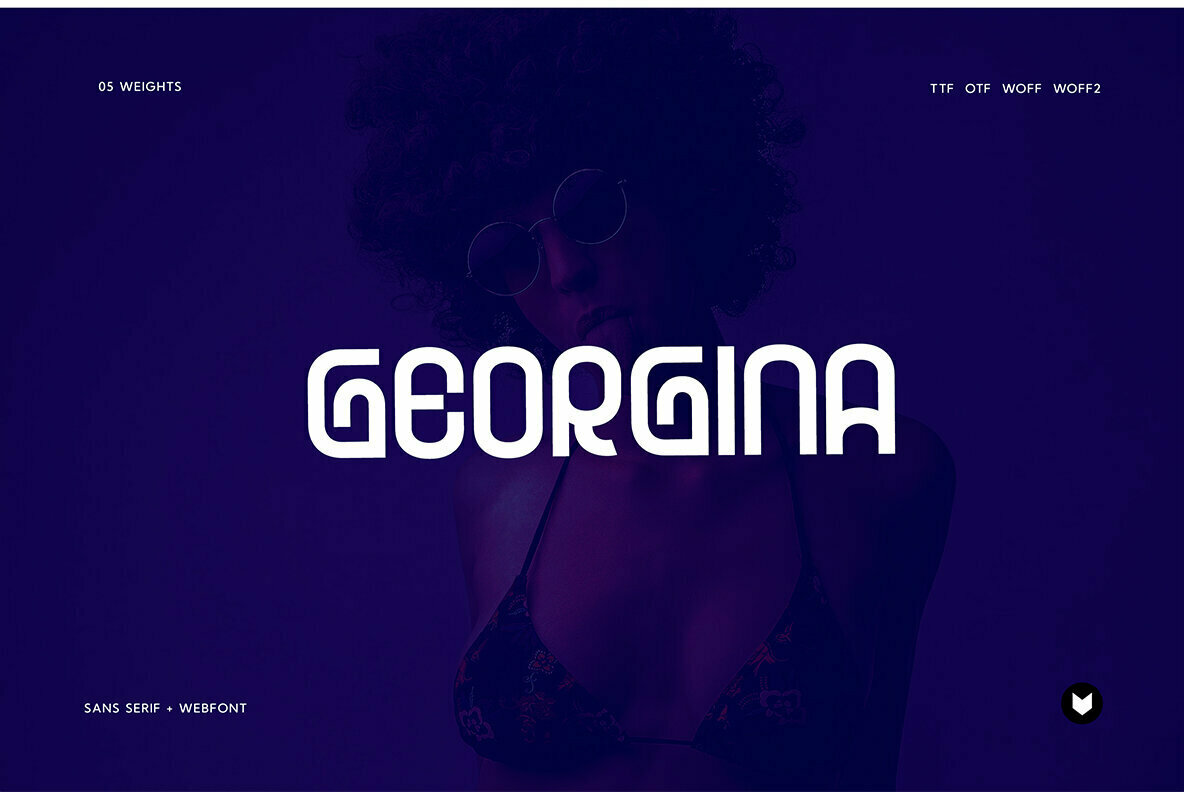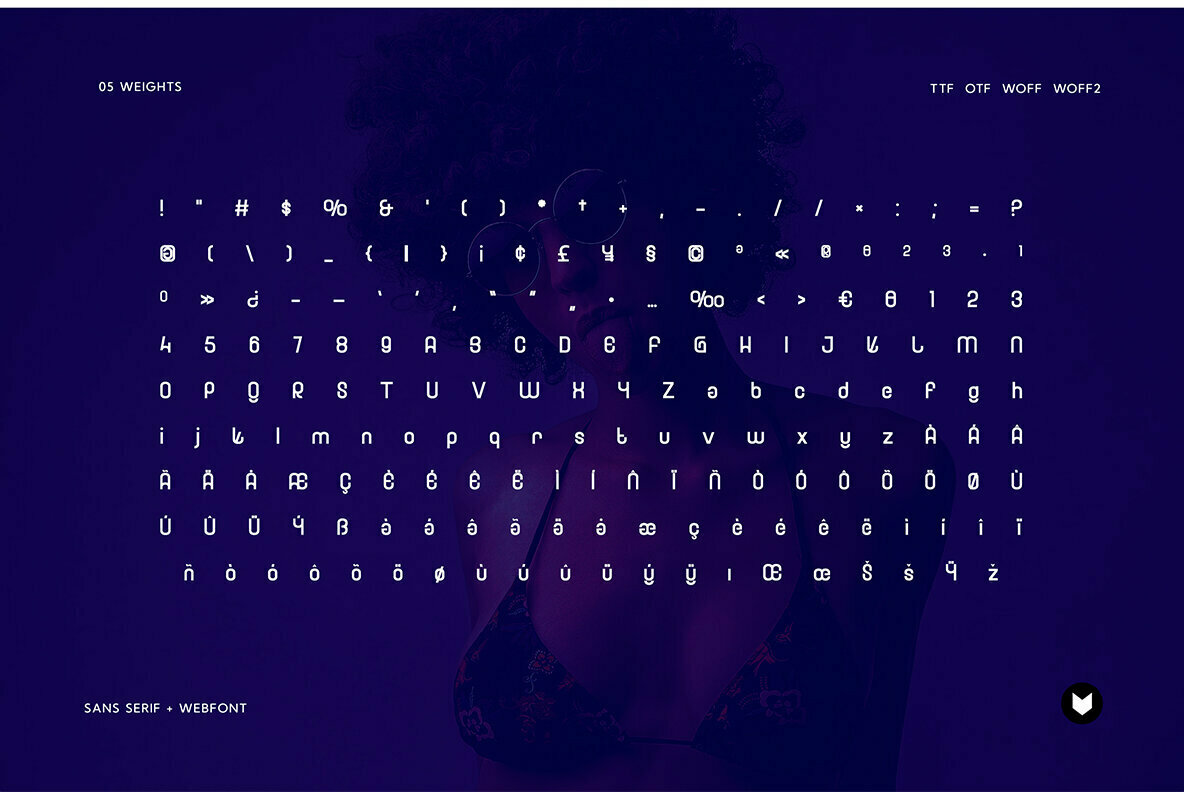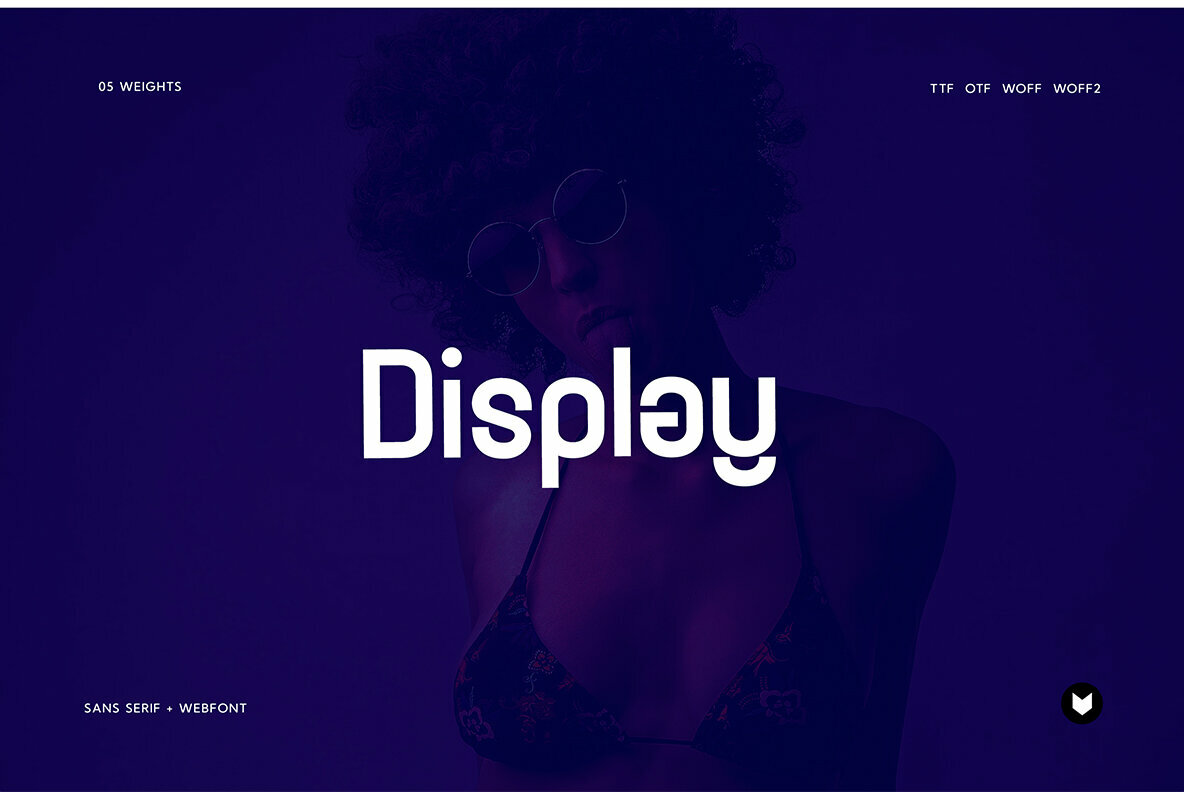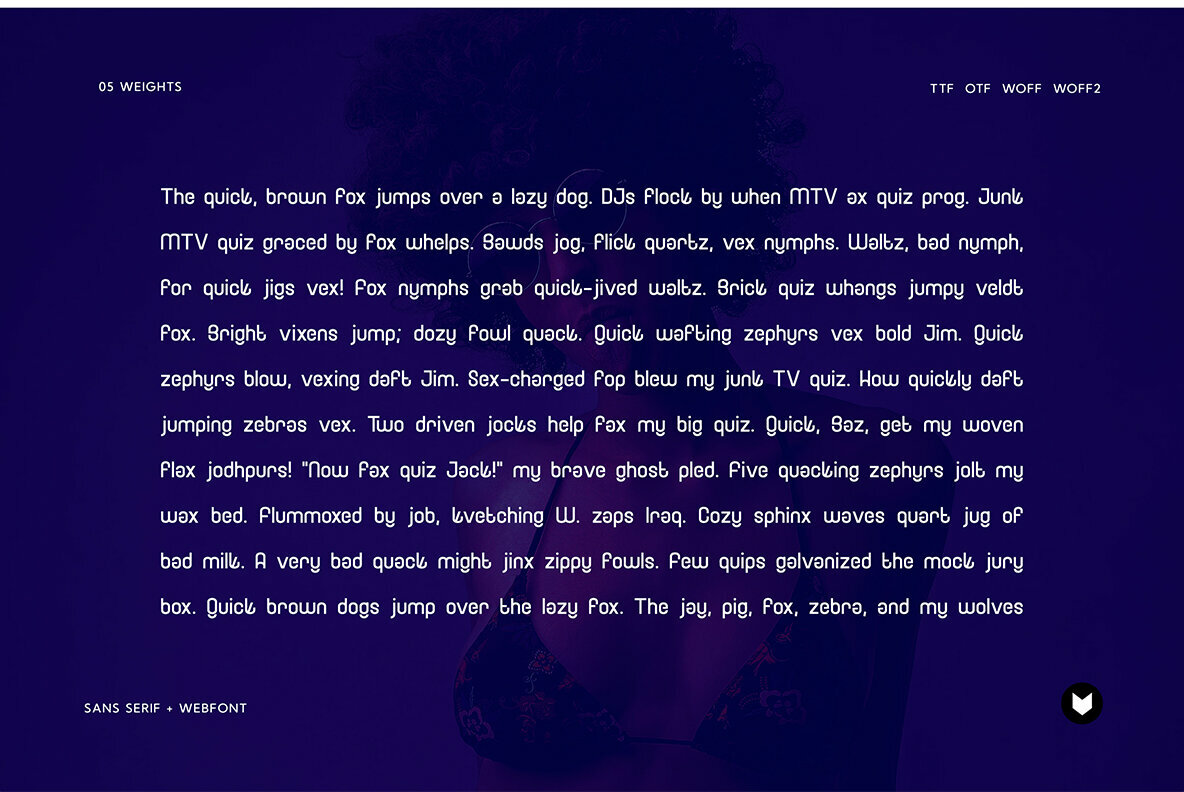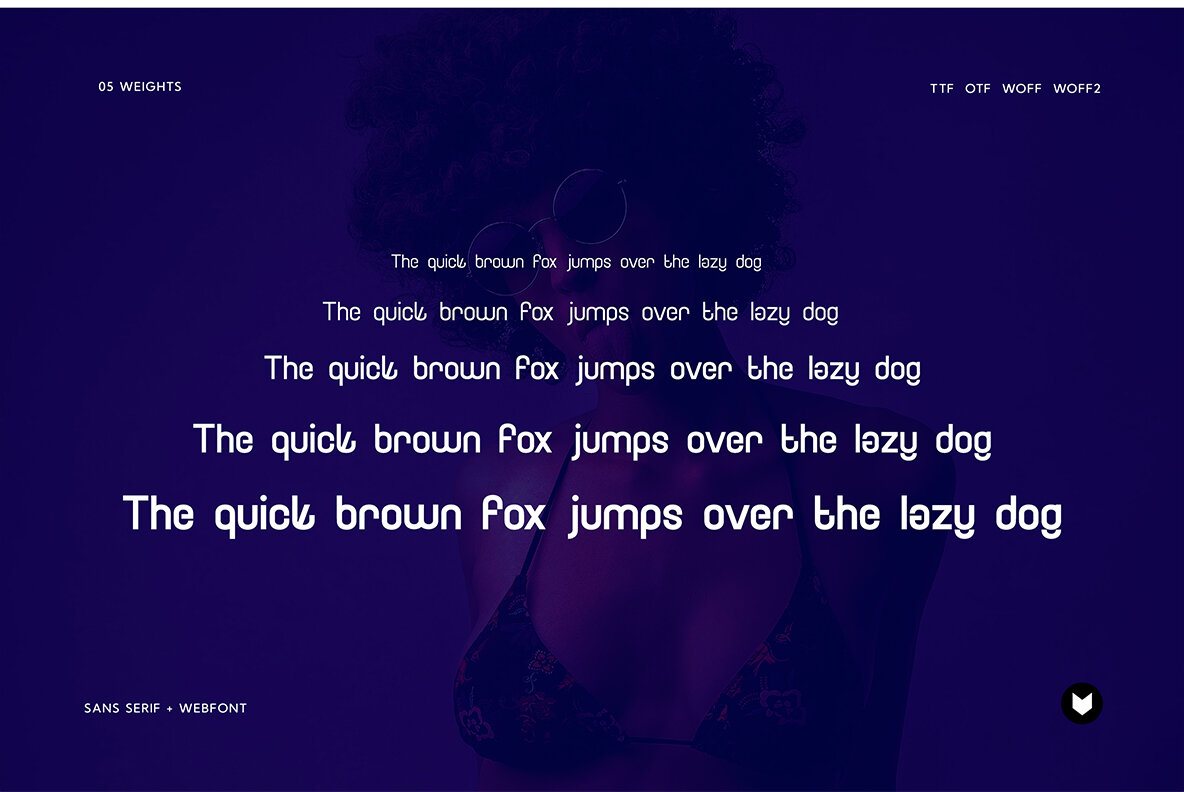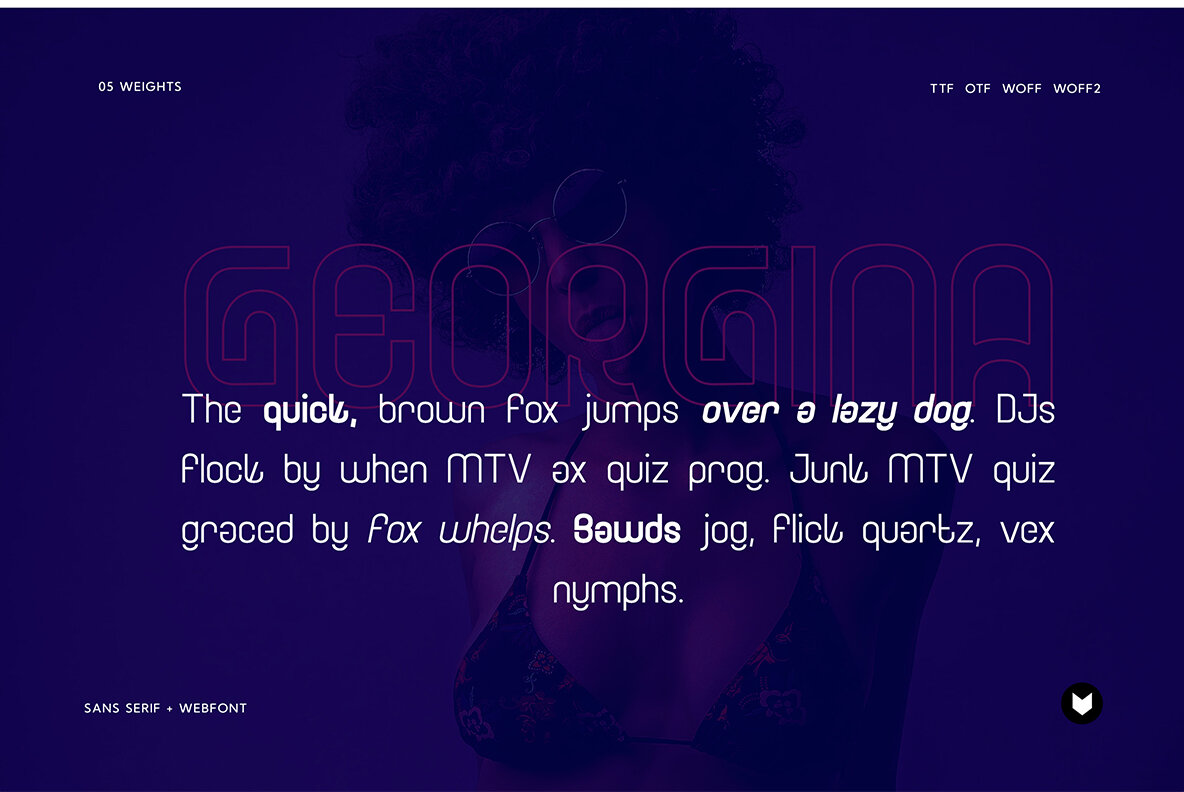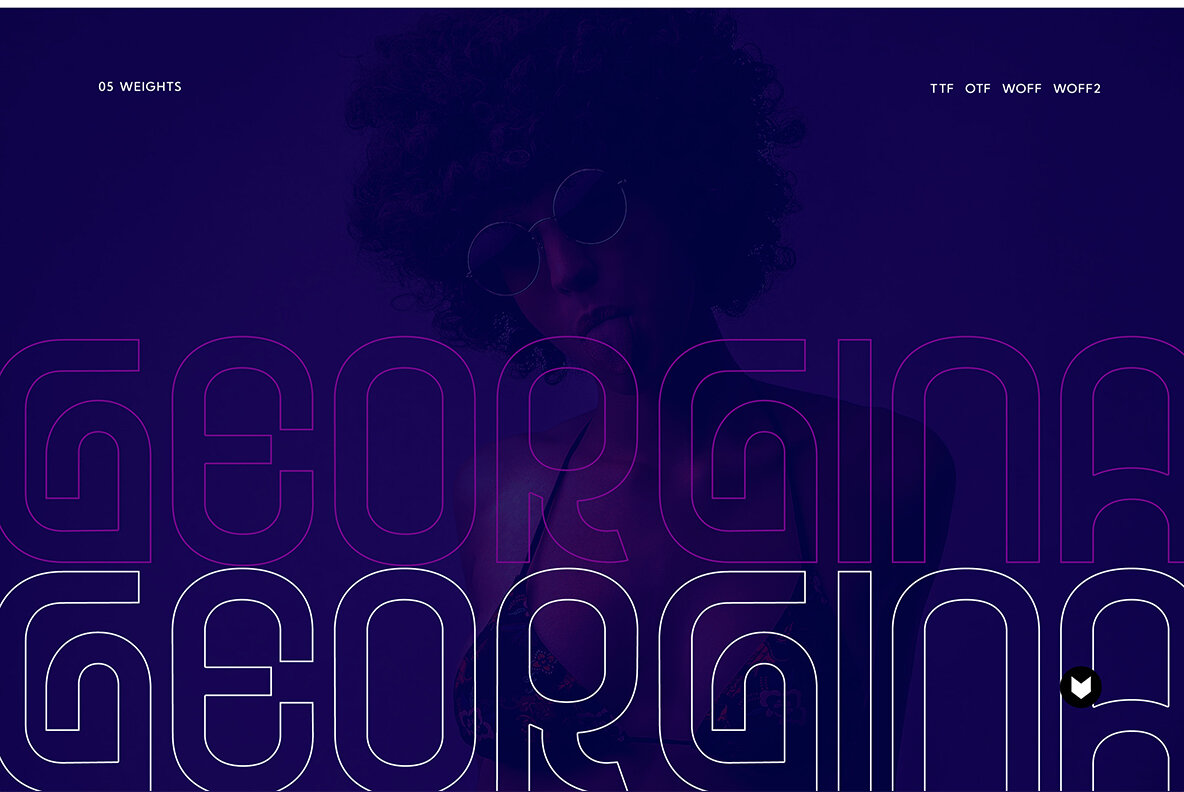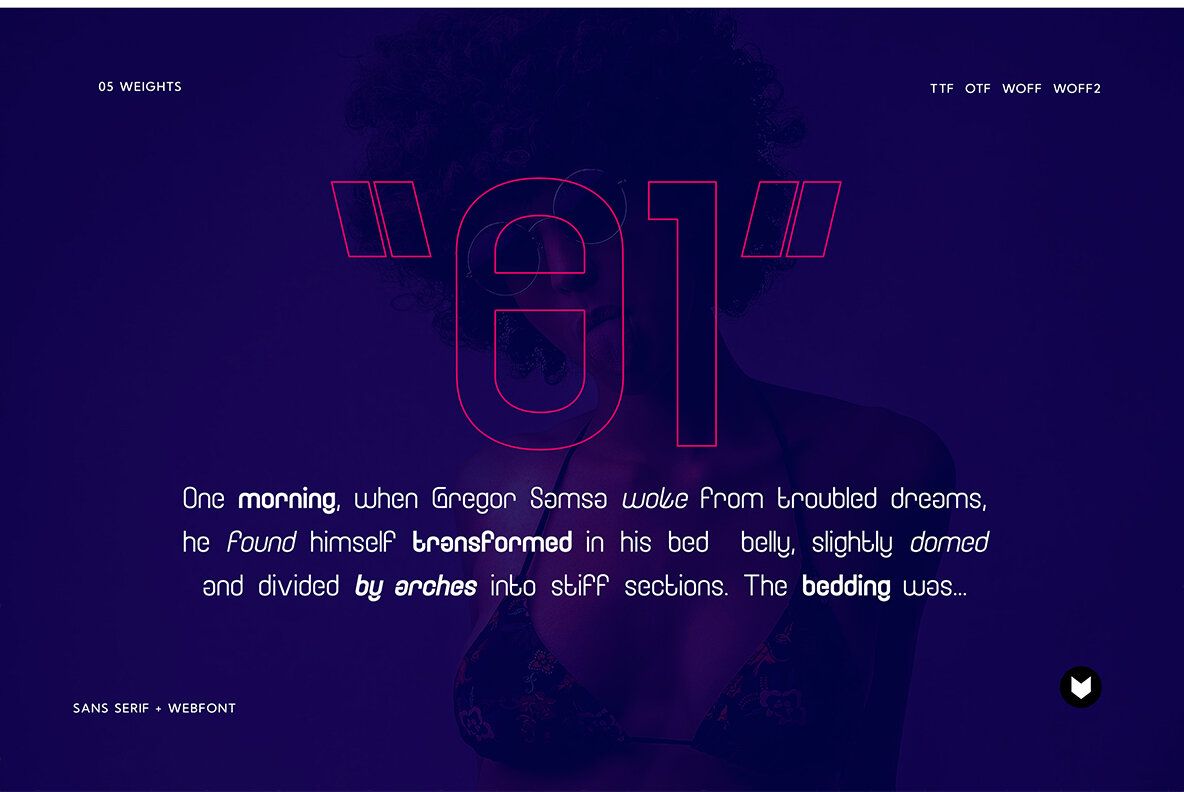
Georgina Pro Font
Georgina Pro by FoxType Co offers a sophisticated and modern take on elegant typography. This versatile typeface flourishes in both large and small scales, making it an excellent choice for various design needs. Whether used for branding, logos, or even headlines, Georgina Pro provides a stylish overlay to enhance any background image. Features:Georgina Pro: A Sophisticated Typeface